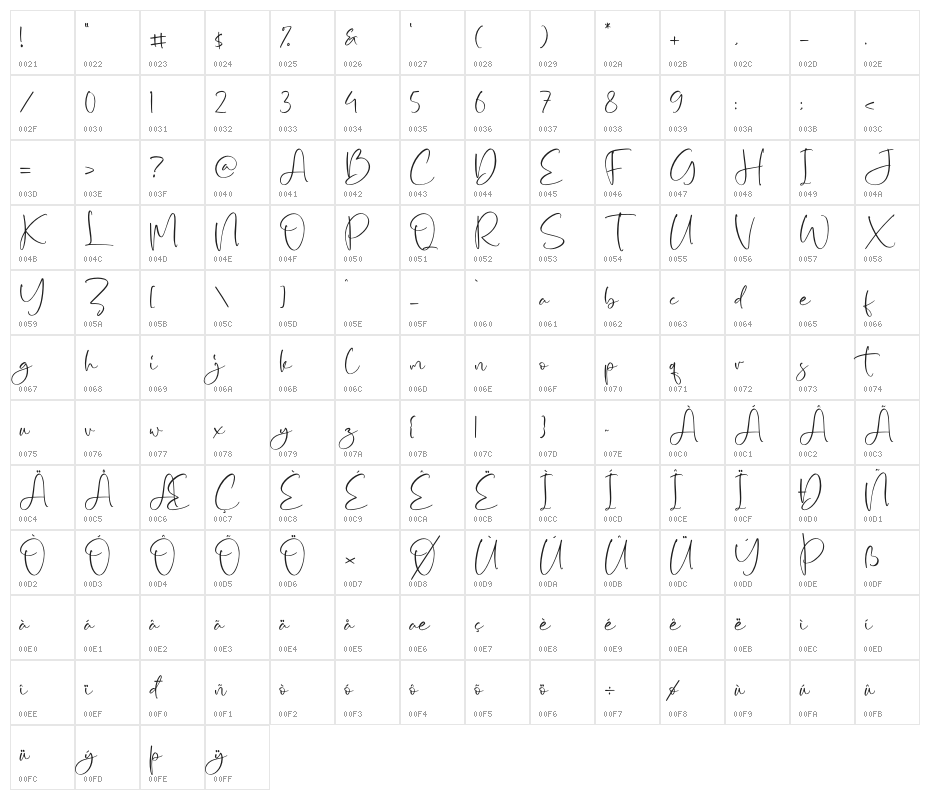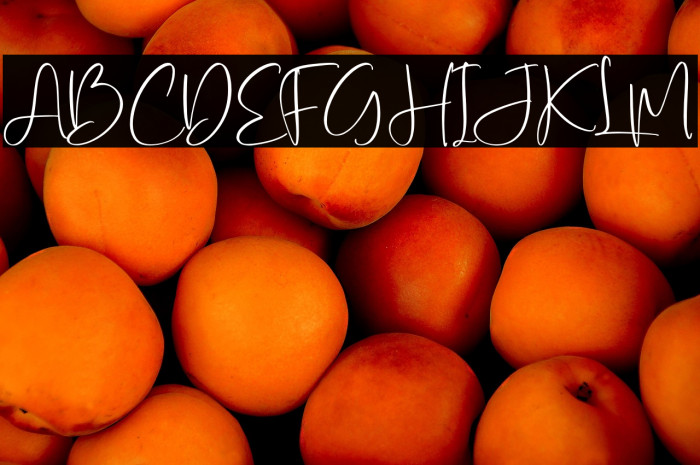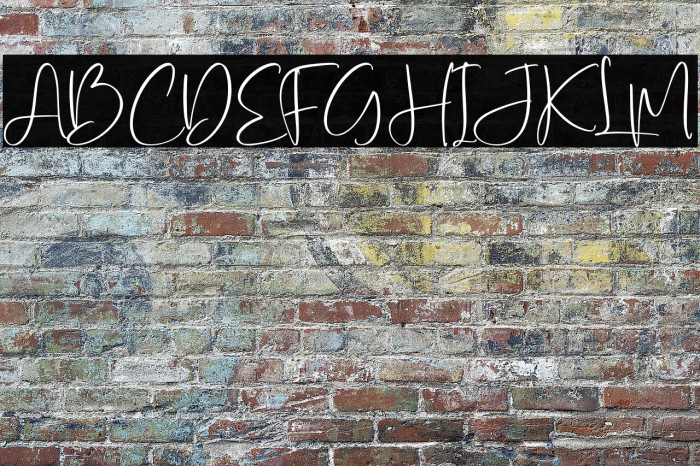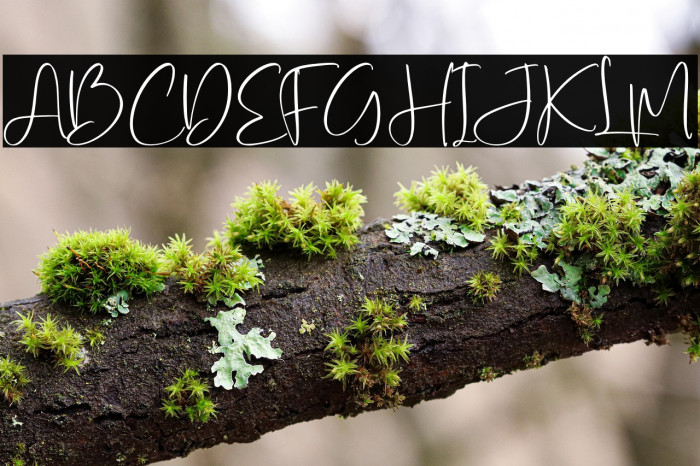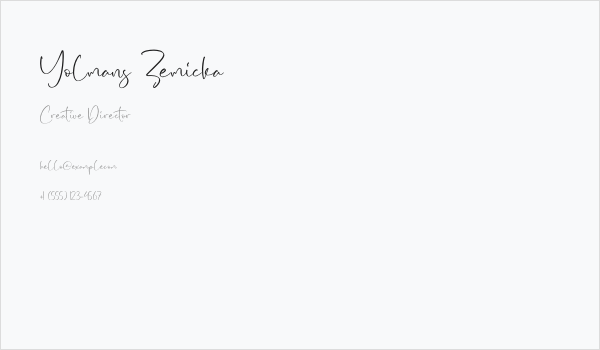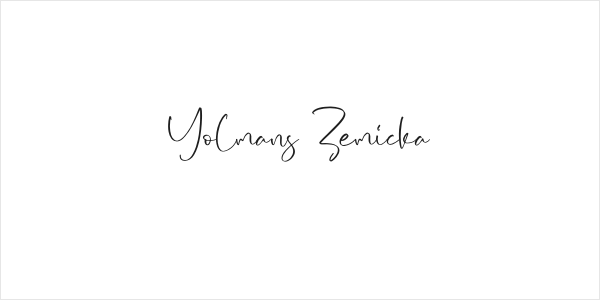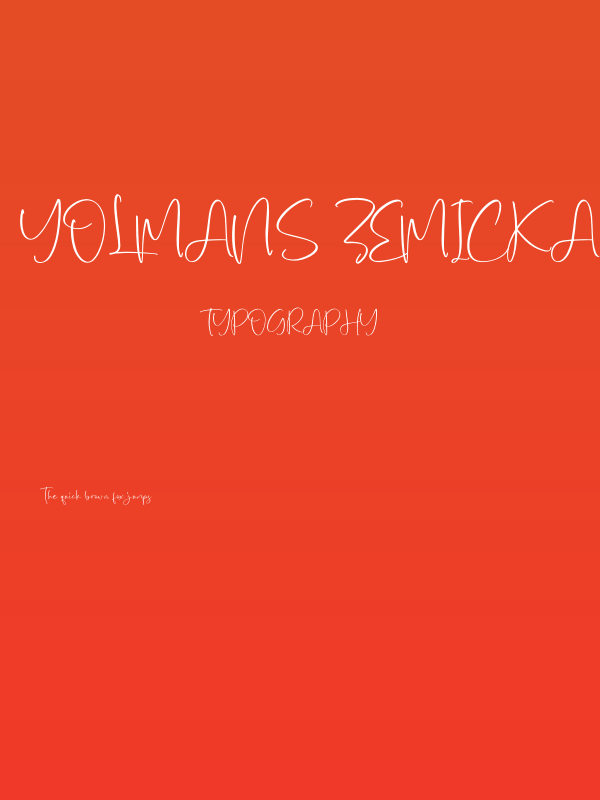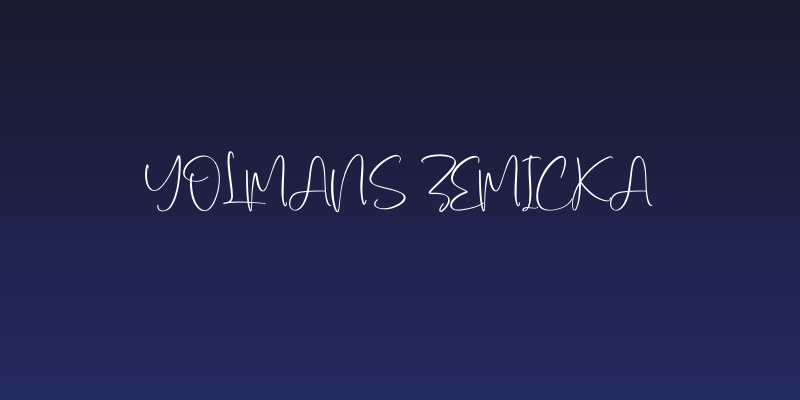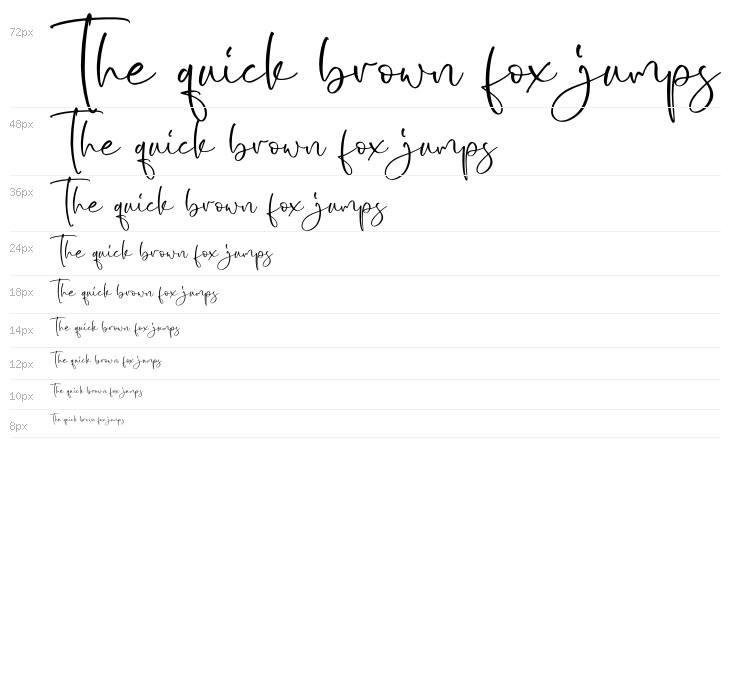
Yolmans Zemicka Font
Yolmans Zemicka Description
A playful, handwritten script font with a casual and flowing style, featuring irregular strokes and a personal touch.
| Use Case | Logos, Invitations, Personal notes |
| Proposed Projects | Greeting cards, invitations, personal branding. |